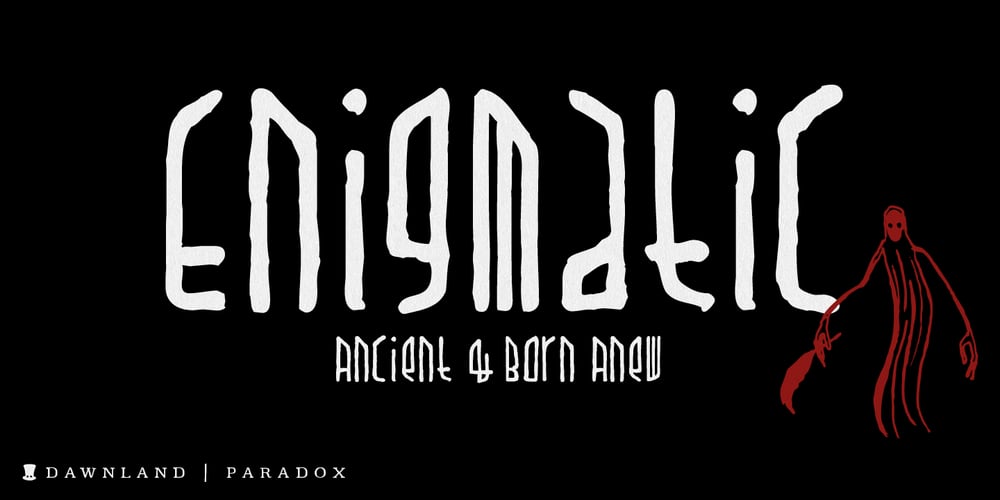
Paradox Font Family was designed by Daniel Viberg and published by Dawnland. Paradox contains 1 styles and family package options. Hand drawn narrow enigmatic grotesque for headlines, preamble and shorter or longer texts. Paradox X contain upper- and lowercase letters (A-Z + swedish characters Å Ä Ö), numbers and many many special characters and glyphs. Common ligatures fi, fl, AE, OE, ae and oe. (open type version of the font and open type compatible layout application required). Paradox X goes perfect with the font Paradox Runa (hand drawn elder norse “futhark” runes)!